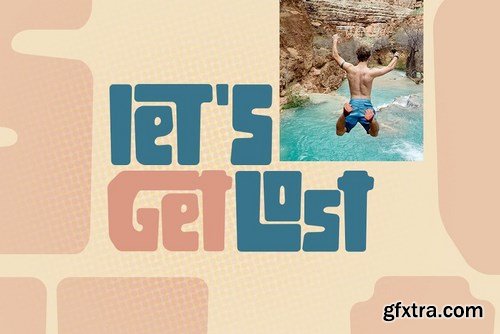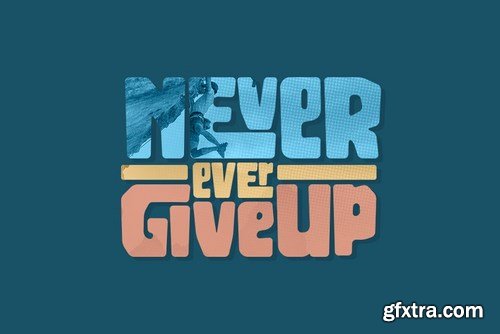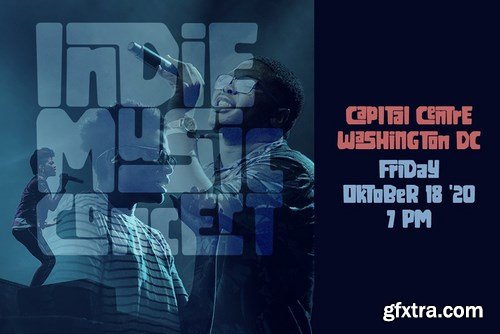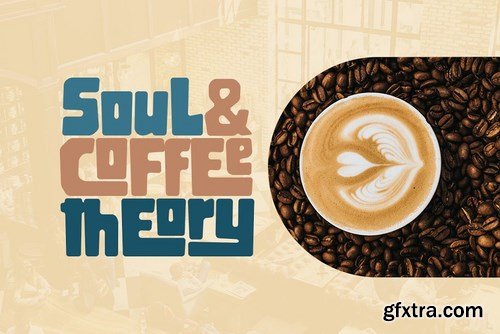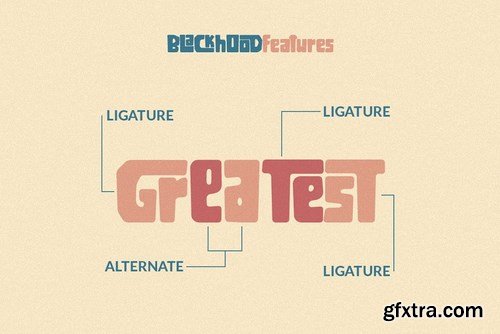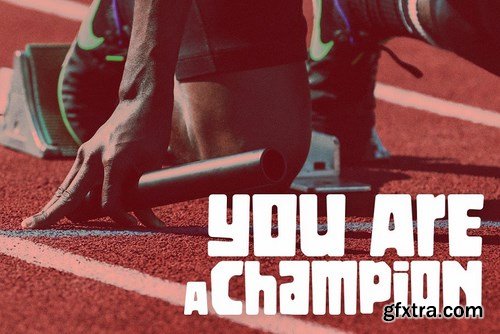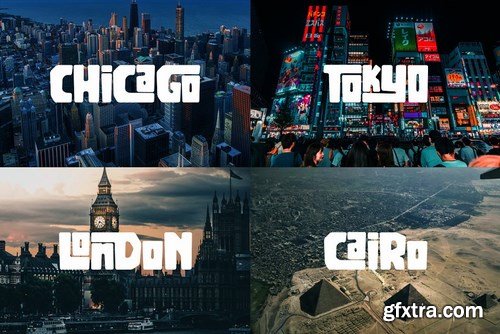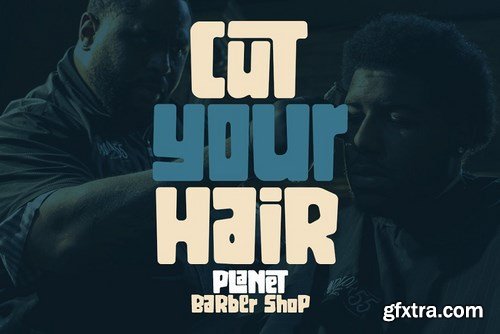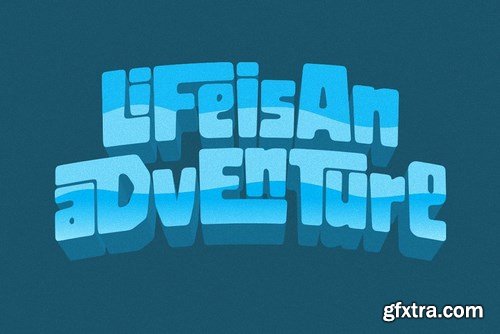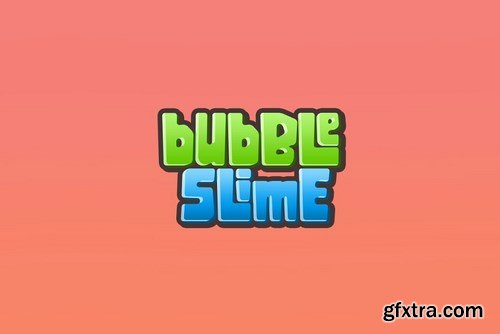
Introducing Blackhood, bold and round poly font. You can use and enjoy Blackhood for used in many possibilities.
All fonts are capitals containing upper & lowercase characters, numerals, punctuation, multilingual support and a lot of ligatures. You can arrange to create a nice logo, or use it as a display face on a poster design, packaging, magazine, sport, poster, apparel, social media post, ad banner, book cover, poster, greeting cards, and advertising.